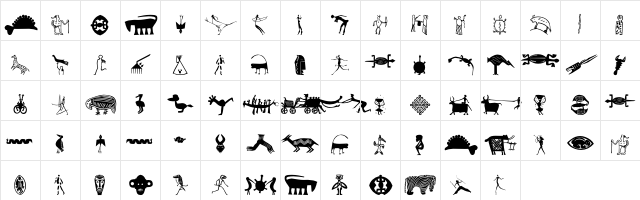
EthnoFontEF Regular
Design Context for EthnoFontEF Typeface
EthnoFontEF is a composed and adaptable typeface that performs quietly and consistently across a wide range of design contexts.